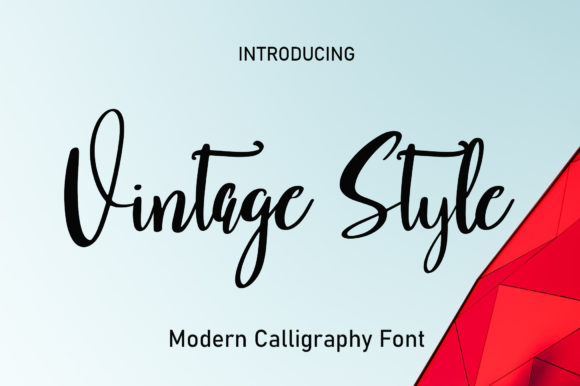
Behold, a font of captivating charm, Vintage Style holds the key to transforming your designs into true works of art. Inspired by the timeless allure of yesteryears, this script font whispers of elegance and grace. Its delicate strokes dance across the page, evoking a sense of nostalgia and romance.
With Vintage Style, you'll find endless creative possibilities at your fingertips. Its graceful curves add a touch of sophistication to wedding invitations, greeting cards, and branding materials. Let your imagination soar as you craft logos and headlines that exude timeless beauty.
But Vintage Style isn't just a pretty face. It's also a font of remarkable versatility. Its meticulous design ensures flawless performance across a wide range of media, from digital screens to printed masterpieces. Whether you're creating eye-catching social media posts, designing elegant brochures, or developing captivating web pages, Vintage Style will elevate your creations with its refined charm.
Speaking of charm, Vintage Style has it in spades. Its playful nature adds a touch of whimsy to any project. Imagine your designs adorned with enchanting swirls and graceful flourishes. Vintage Style transforms ordinary text into captivating messages that spark curiosity and ignite imaginations.
And let's not forget about the practical side. Vintage Style's crisp and legible characters ensure optimal readability, even at small sizes. No more squinting at blurry letters or struggling to decipher poorly designed fonts. With Vintage Style, your words will shine through with clarity and precision.
So, whether you're a seasoned designer or just starting your creative journey, Vintage Style is the perfect companion to bring your visions to life. Embrace the beauty of the past and create designs that stand the test of time.